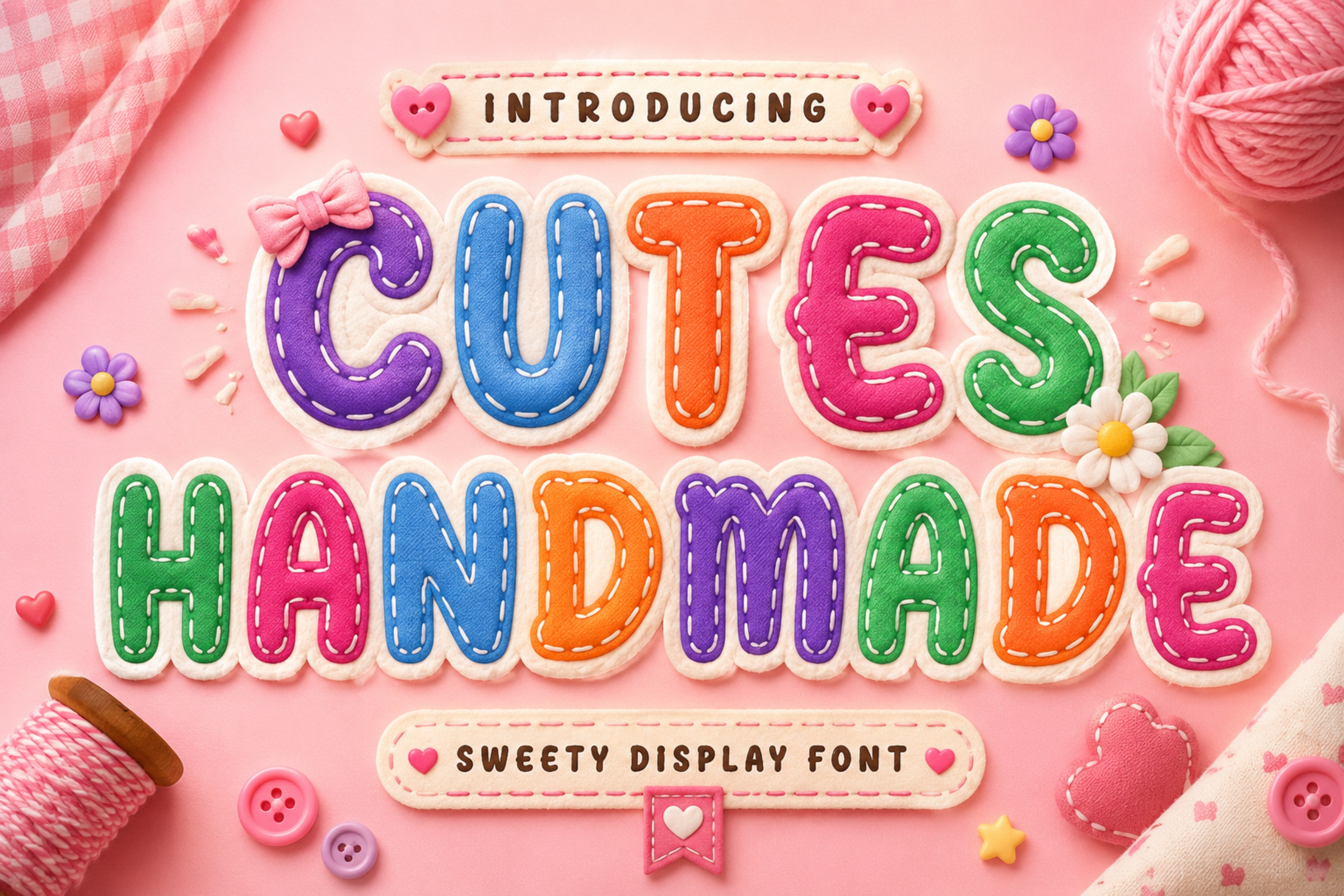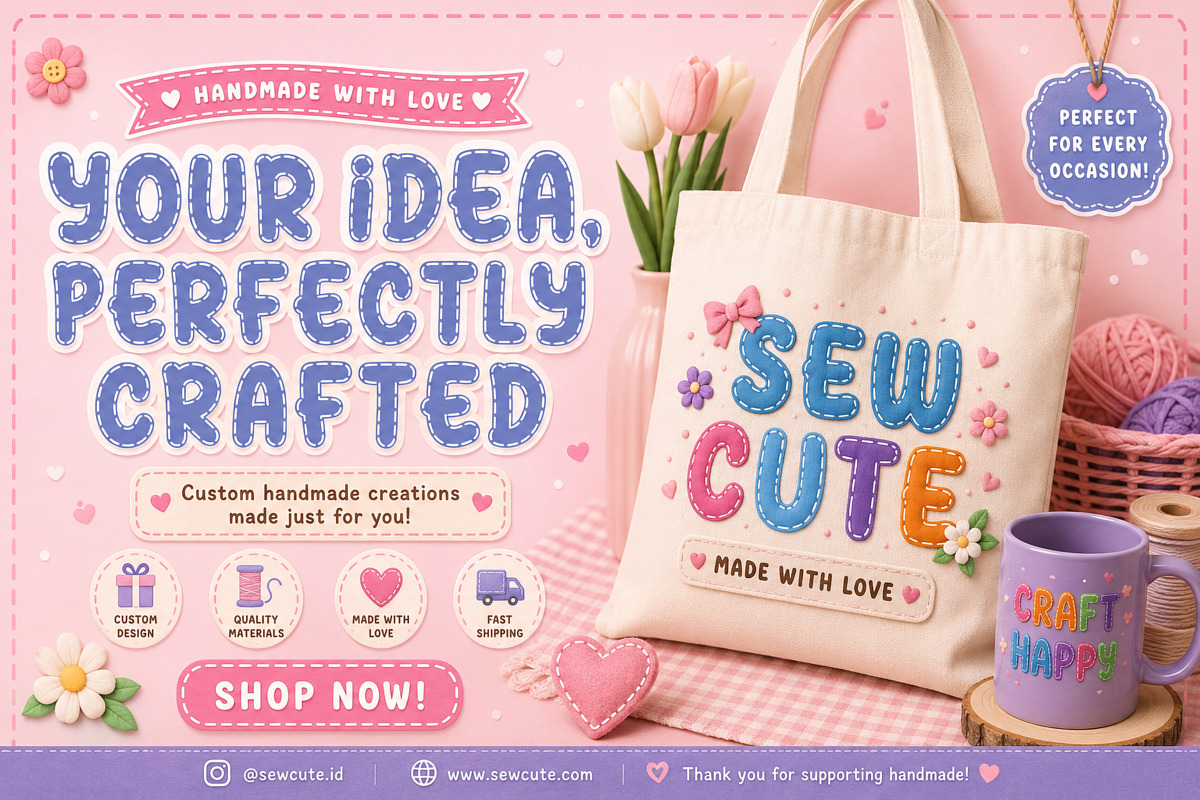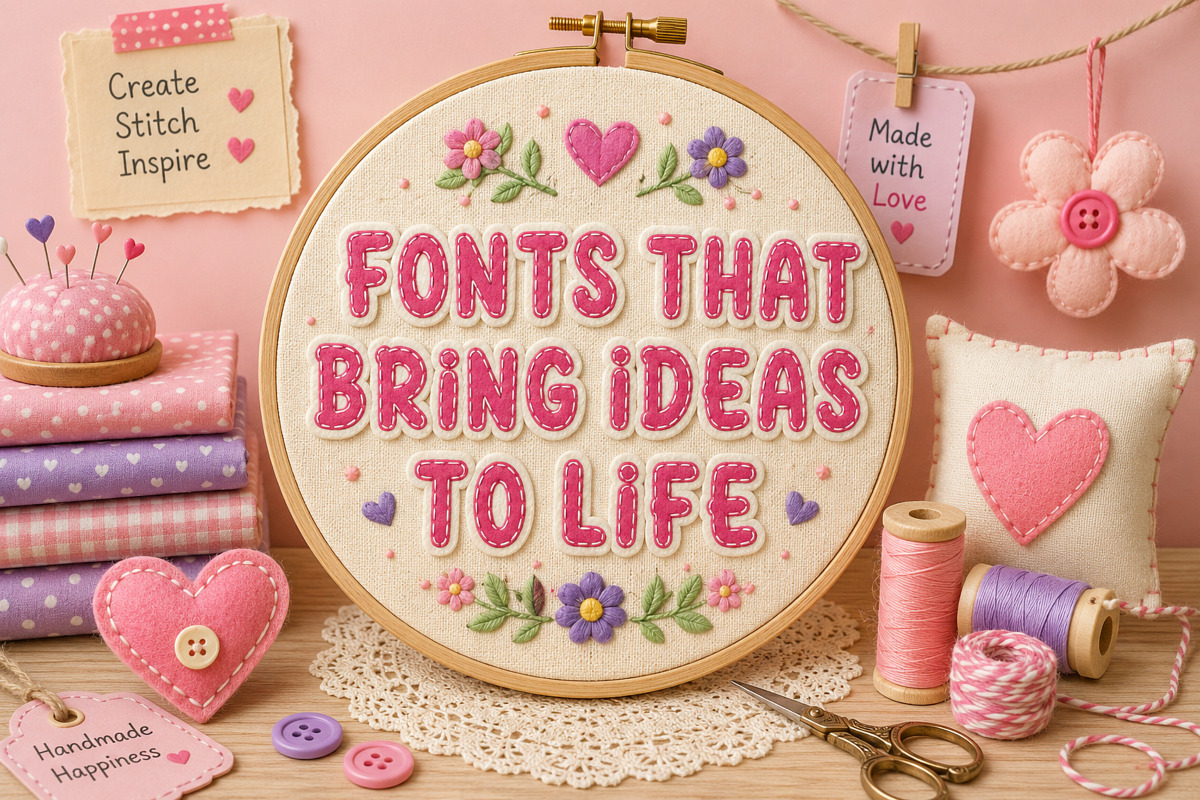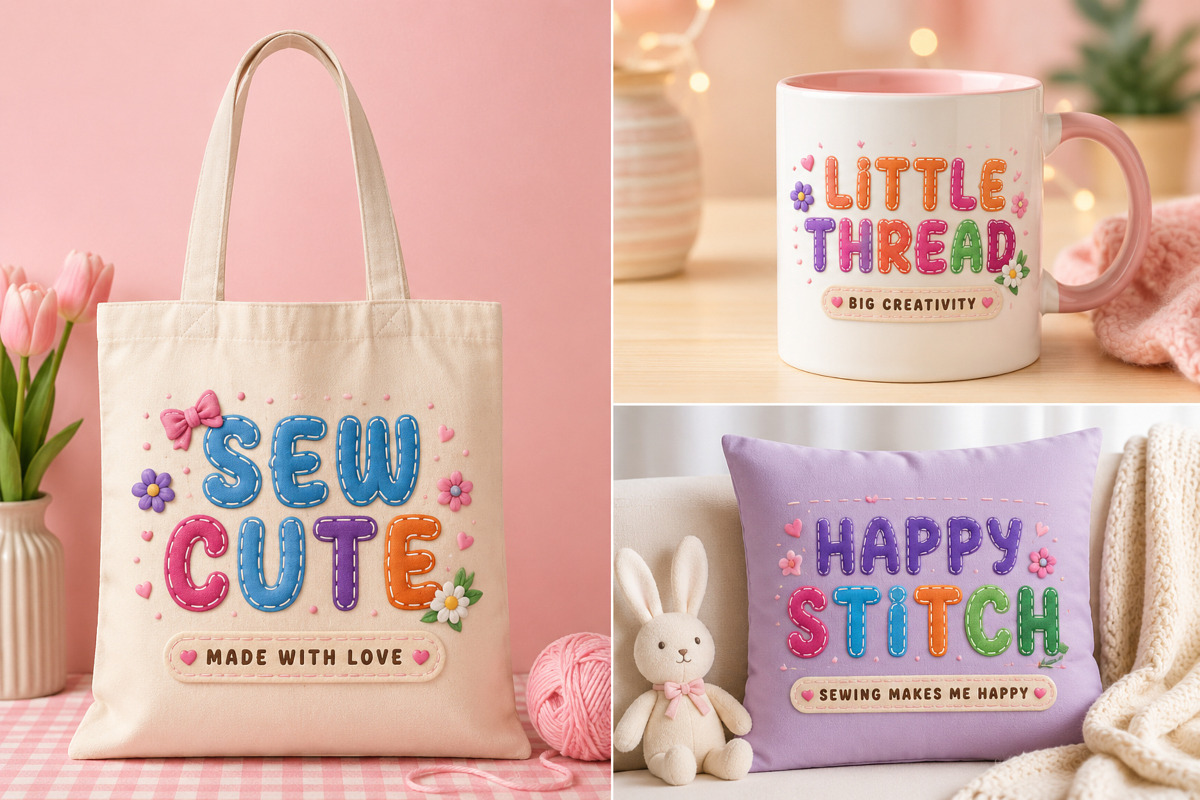
Cute Handmade – Sweet Font
Cute Handmade is a charming handcrafted display font inspired by soft felt fabric, embroidery, and patchwork crafts. Every letter features stitched details and plush textures that create a warm, cheerful, and handmade appearance.
Designed to bring joy and creativity, this font is perfect for children's projects, nursery decorations, baby shower invitations, educational materials, craft businesses, toy branding, stickers, greeting cards, scrapbooking, apparel, packaging, and playful social media content.
Whether you're designing for handmade products or colorful creative projects, Cute Handmade adds a cozy and delightful personality to every design.
Uppercase characters
Handmade felt texture style
Embroidery stitch effect
Colorful playful appearance
Kids Branding
Baby Products
Toy Packaging
Nursery Decor
Birthday Invitations
Greeting Cards
Craft Projects
Scrapbooking
Stickers
T-Shirt Designs
Educational Materials
Posters
Logos